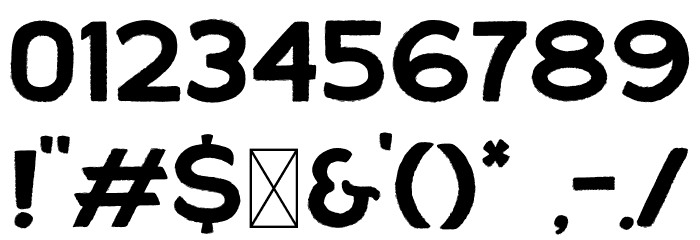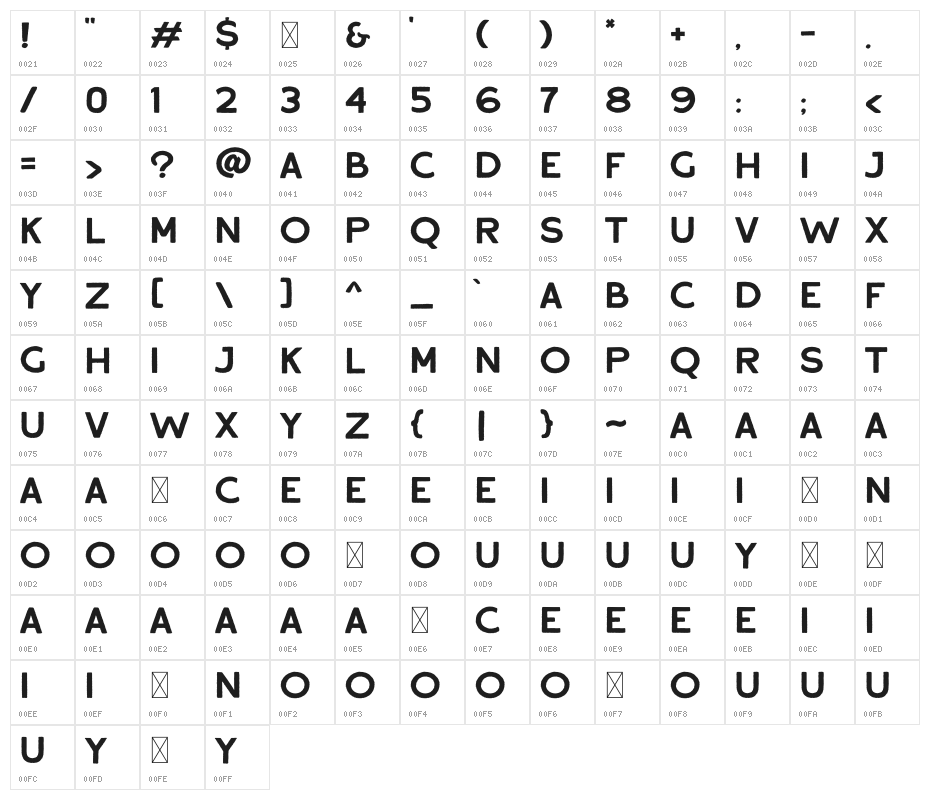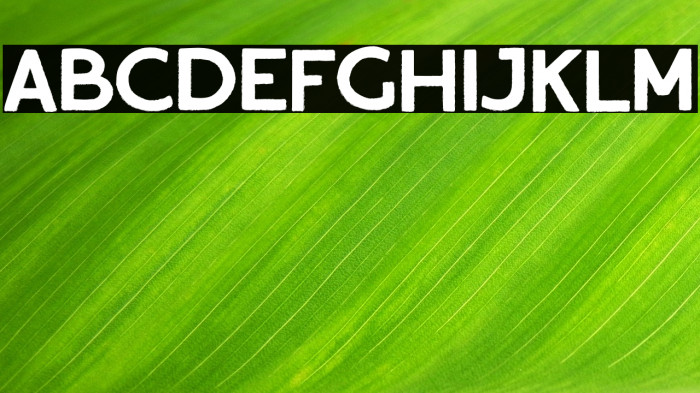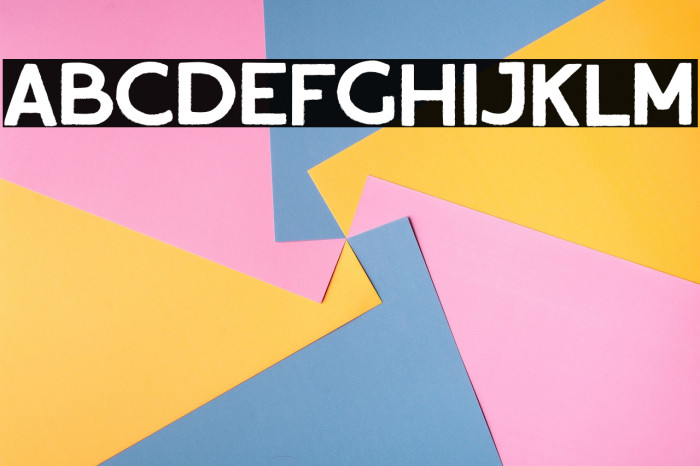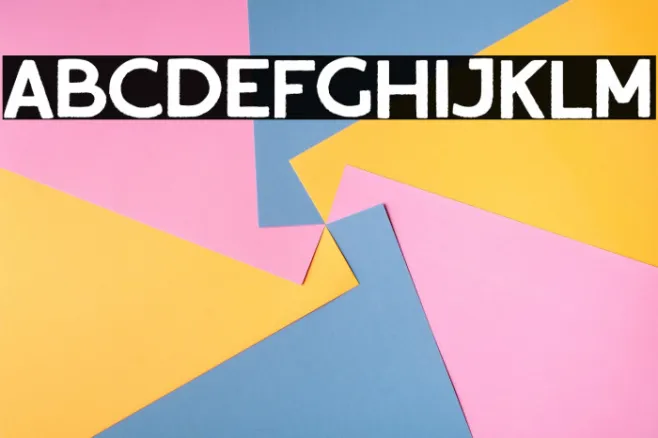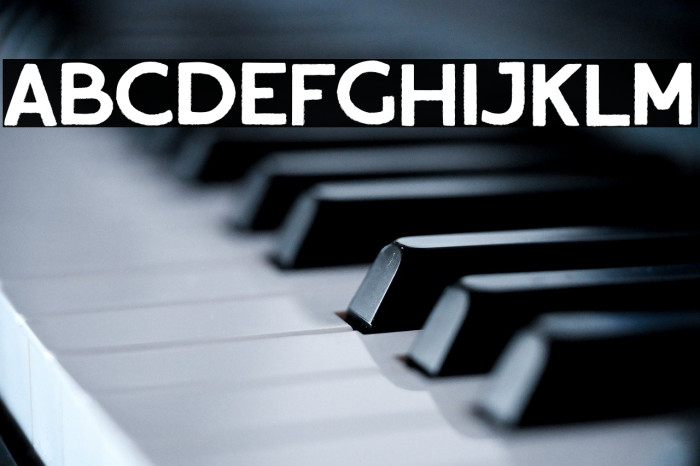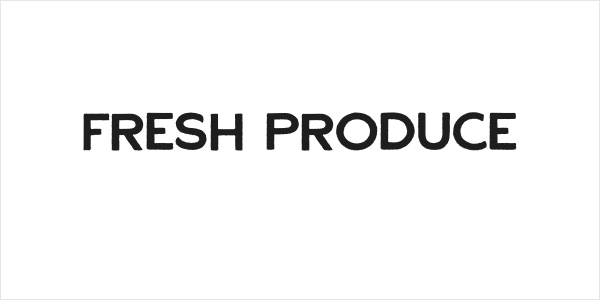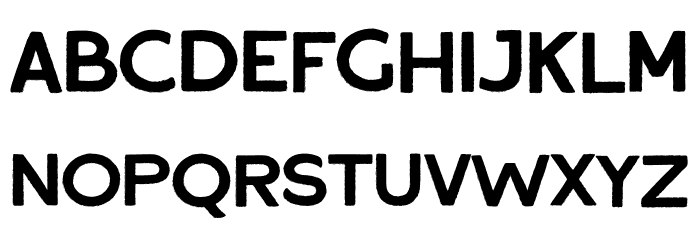
Fresh Produce Font
Fresh Produce Description
This font features a bold and robust design with a slightly distressed texture, giving it a hand-crafted appearance. The uppercase letters are uniform in height, with clean, straight lines and rounded edges that add a touch of softness to the otherwise strong and impactful look. The numerals and special characters maintain the same boldness, ensuring consistency across all characters. This font's unique style makes it stand out, while its legibility remains high, making it suitable for various design applications.